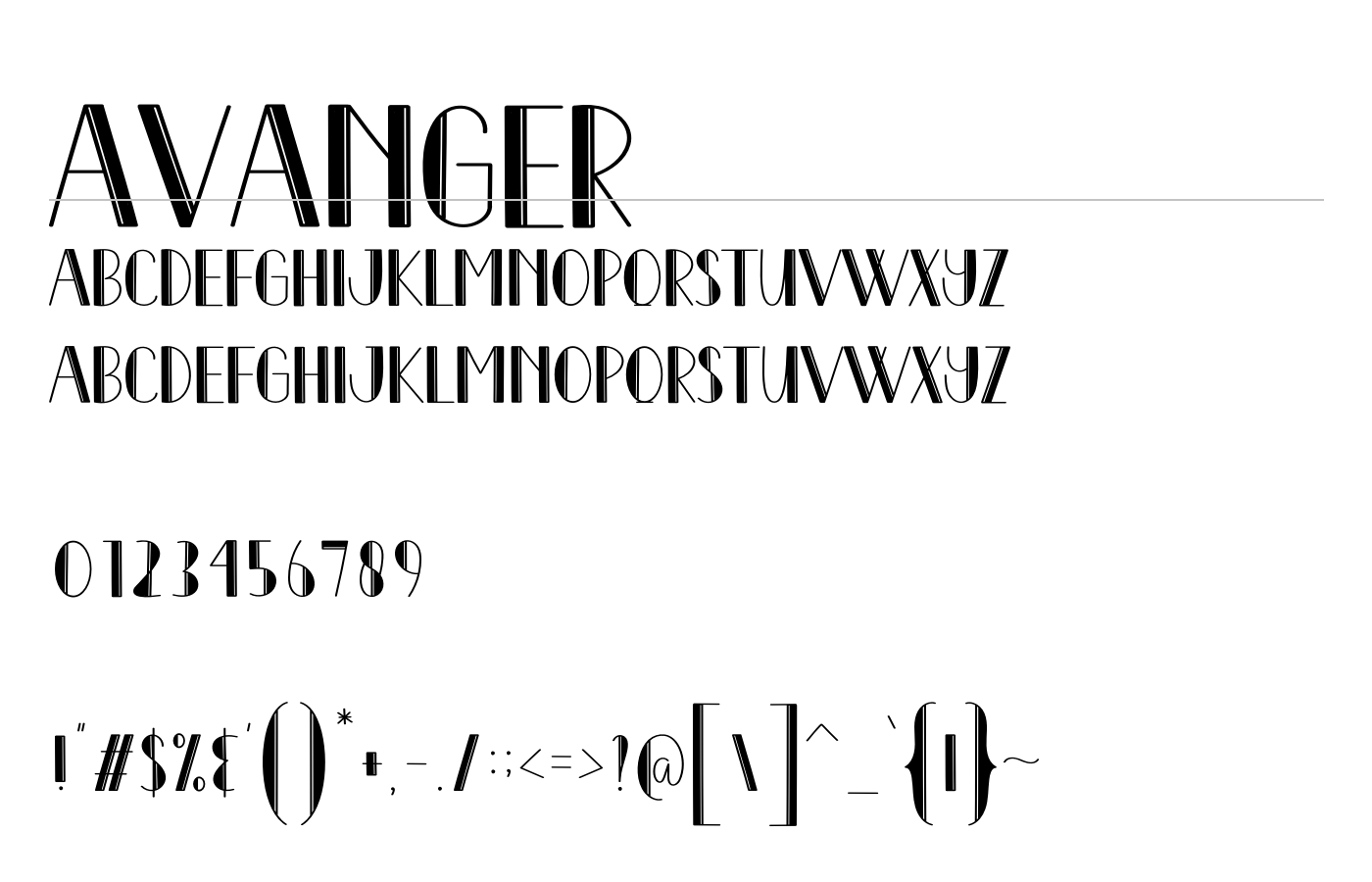
Avanger is a distinctive, narrow sans serif font with a striking Art Deco influence, characterized by tall, elegant letterforms with high contrast between thick and thin strokes. Its unique geometric shapes and stylized curves give it a vintage yet modern flair, making it ideal for standout headlines, luxury branding, and creative editorial design. This font works best where a bold, sophisticated statement is needed, adding flair to logos, posters, and fashion-related projects.
Avanger Font
About Avanger Font